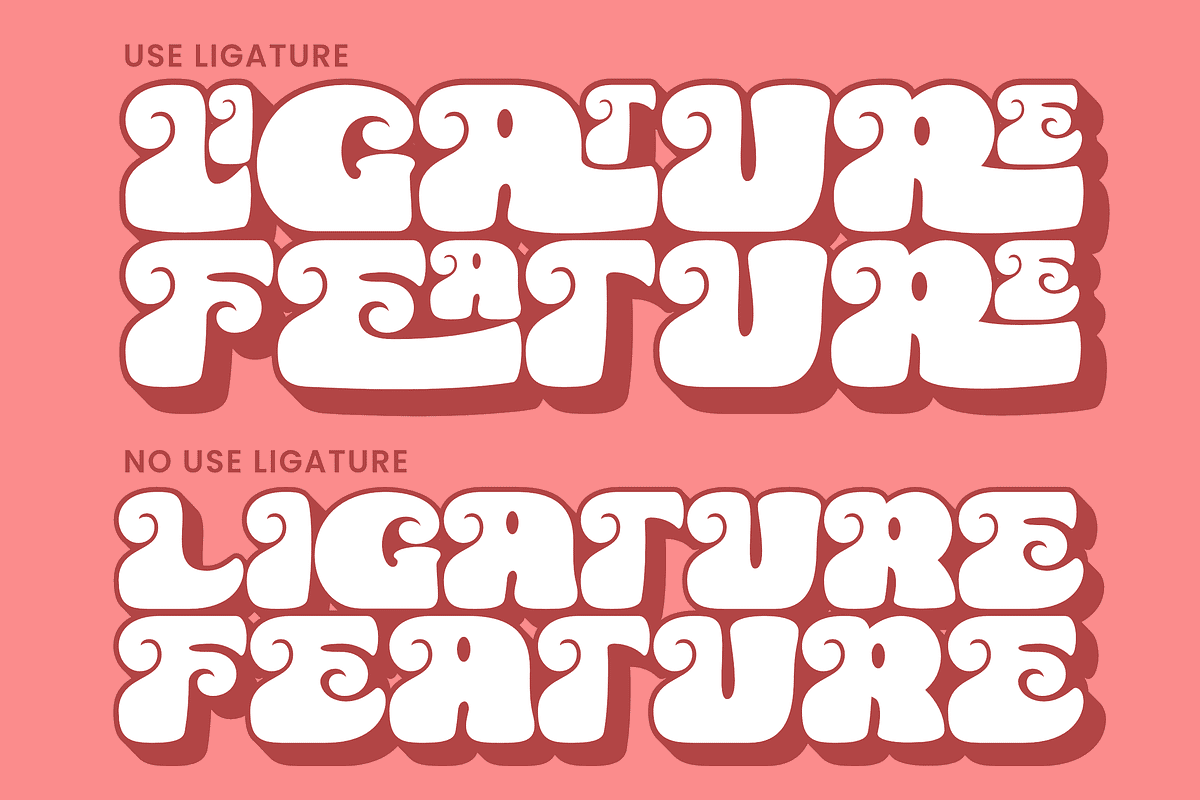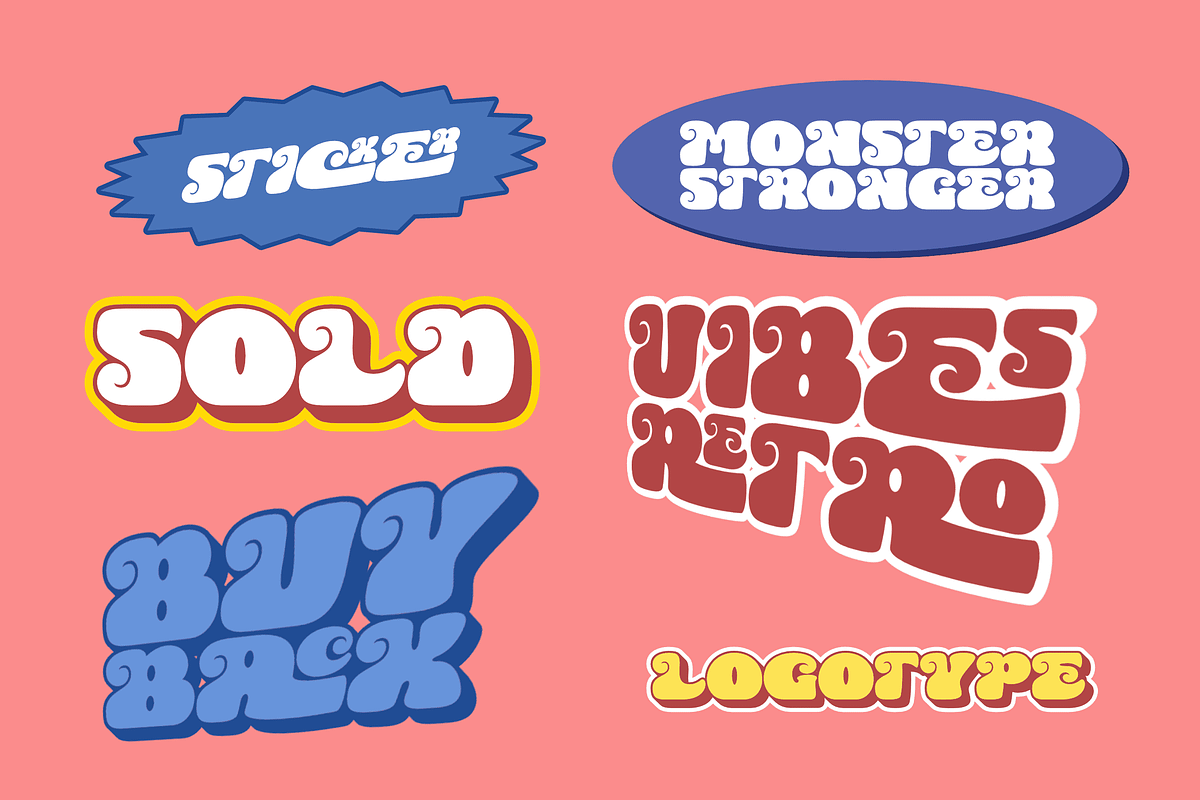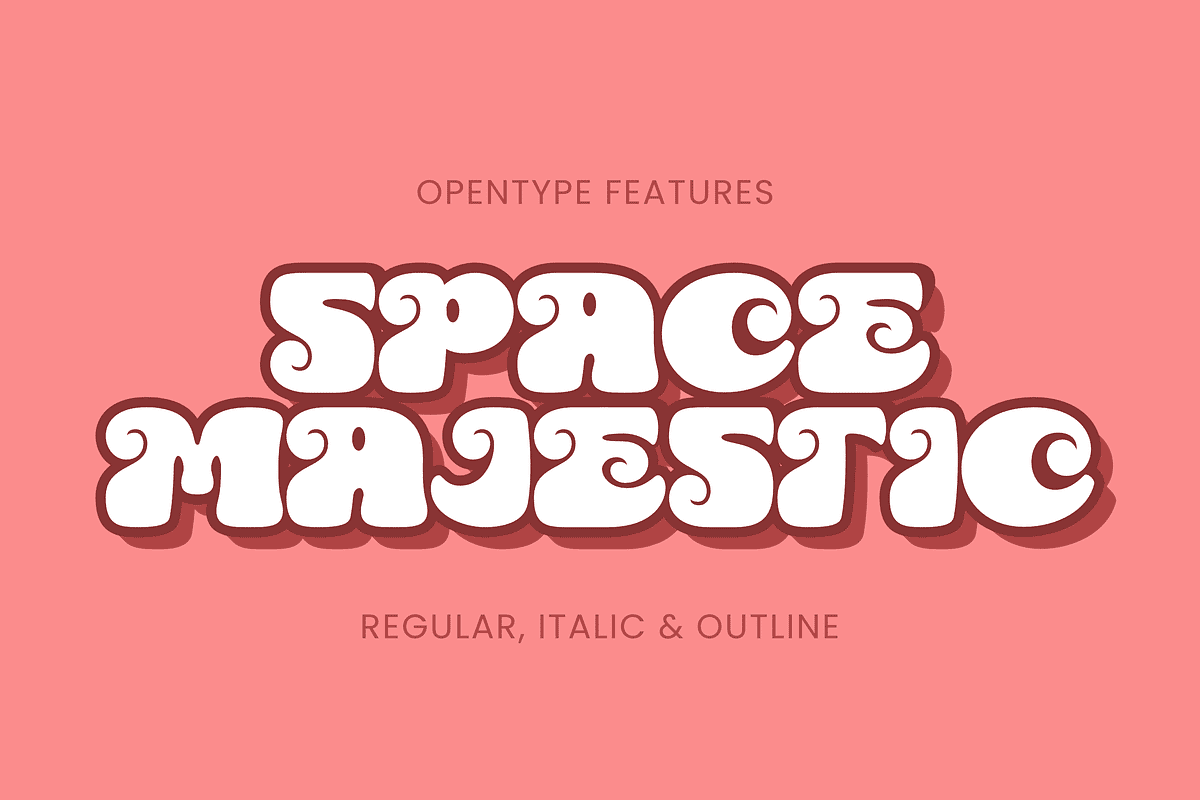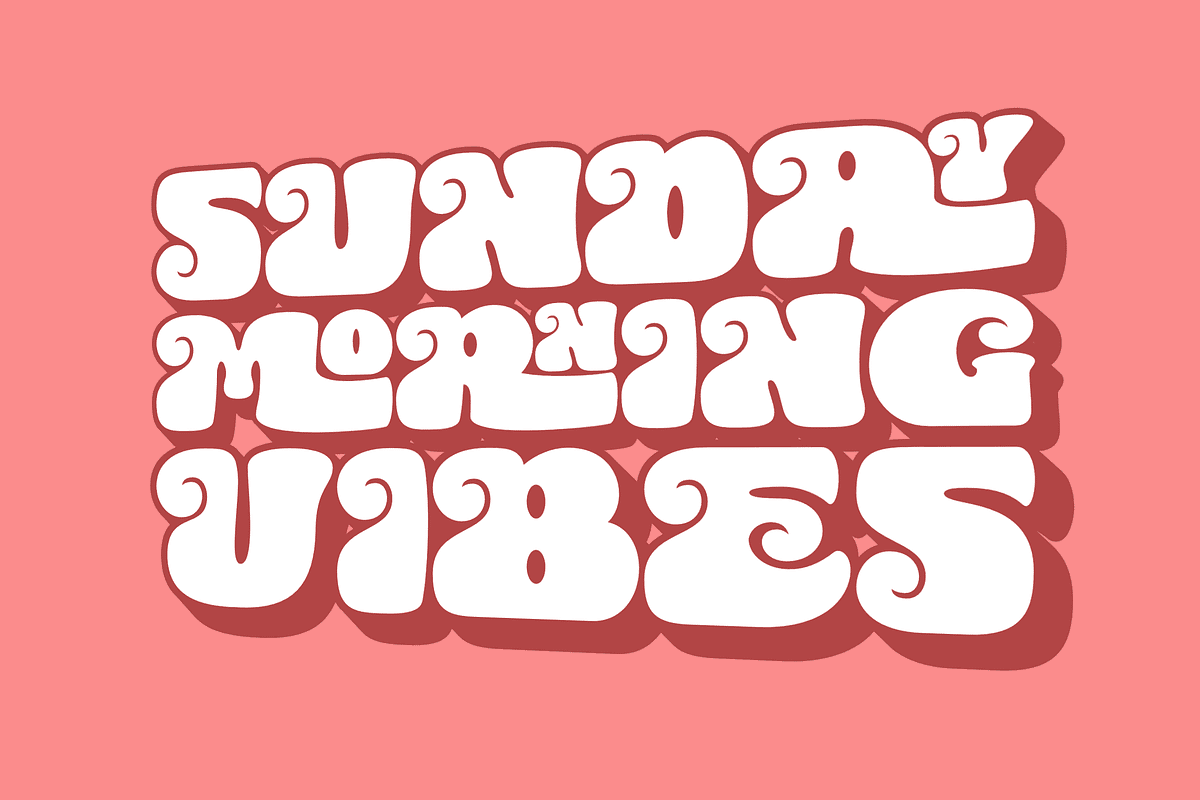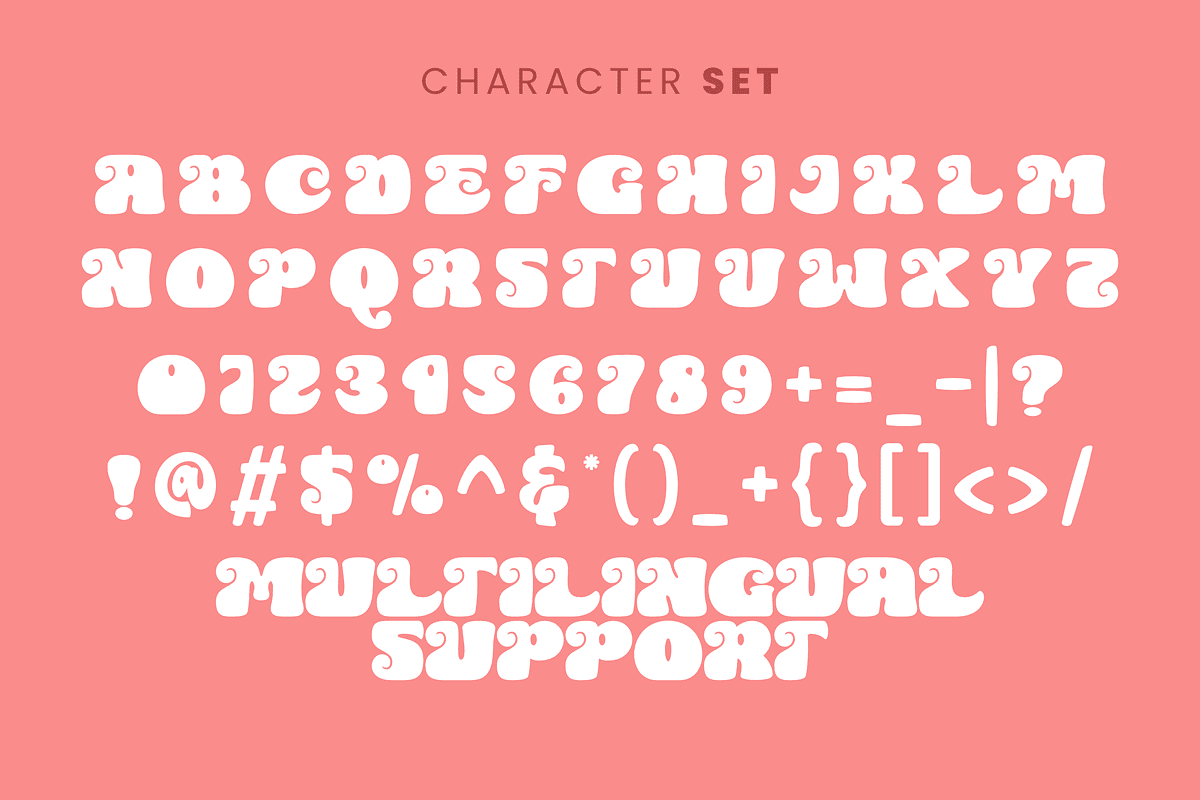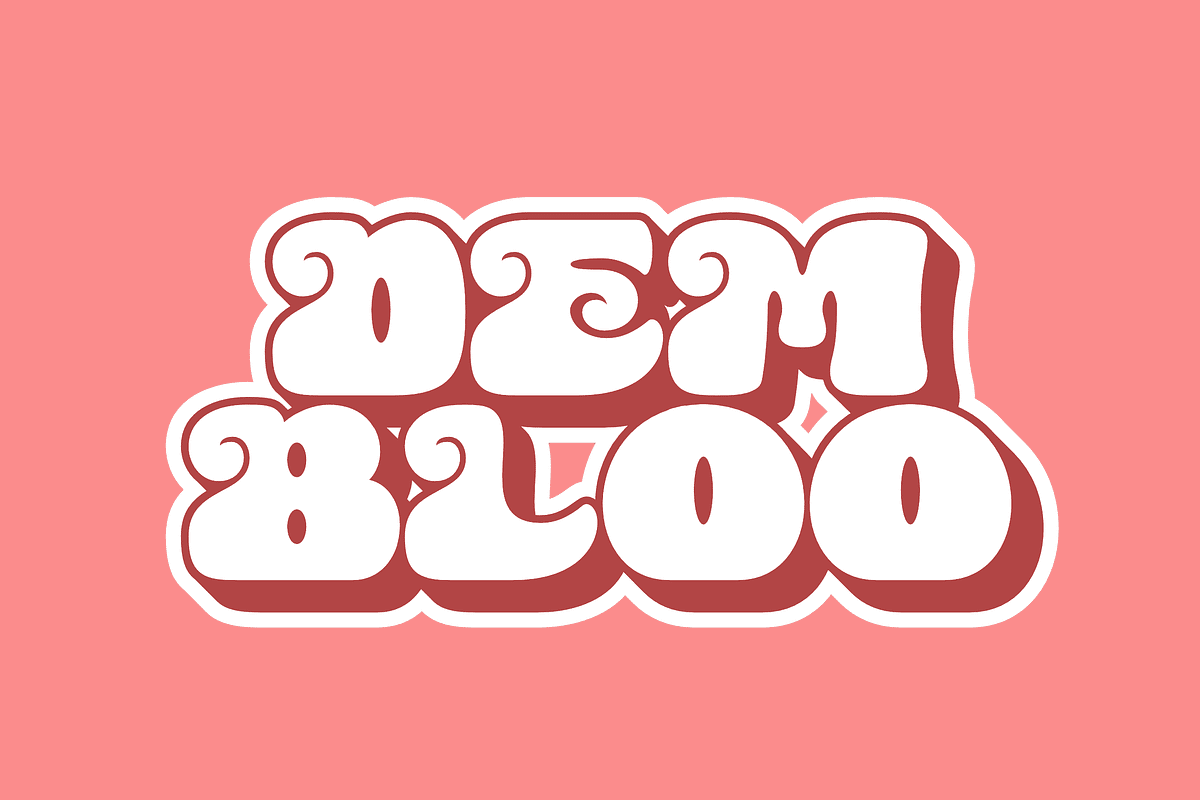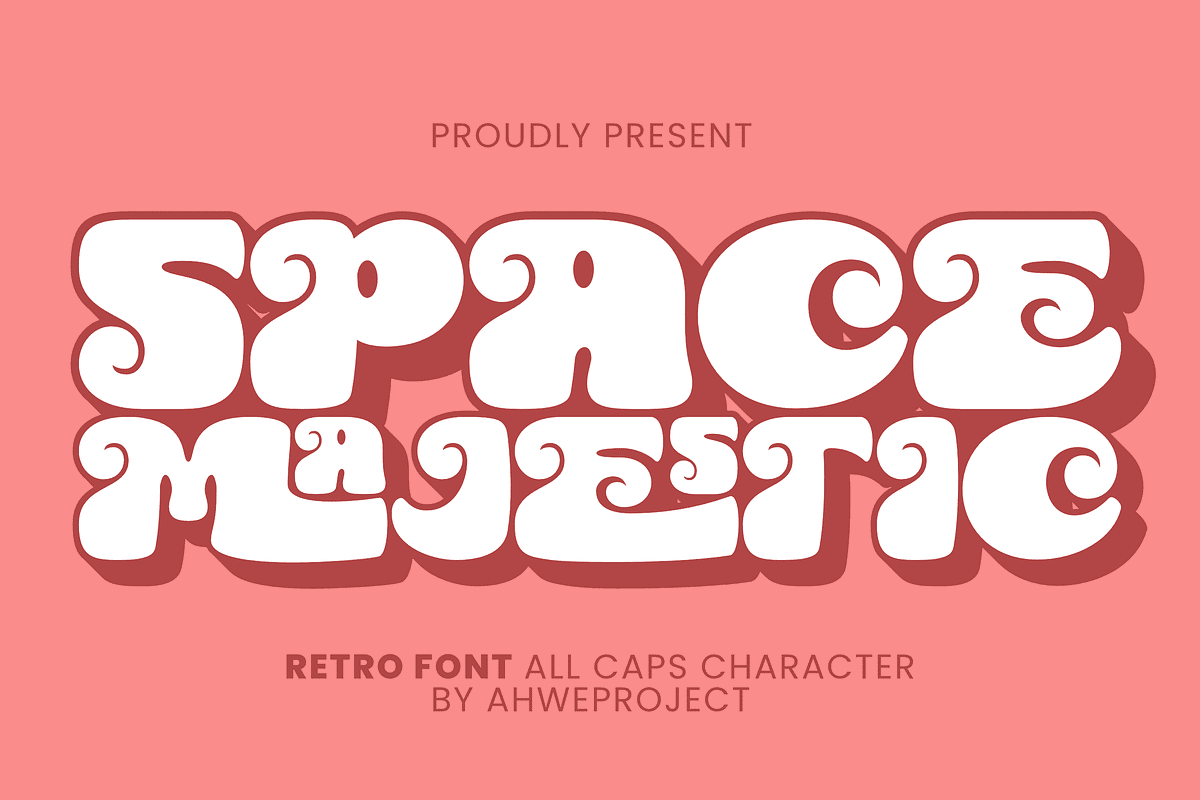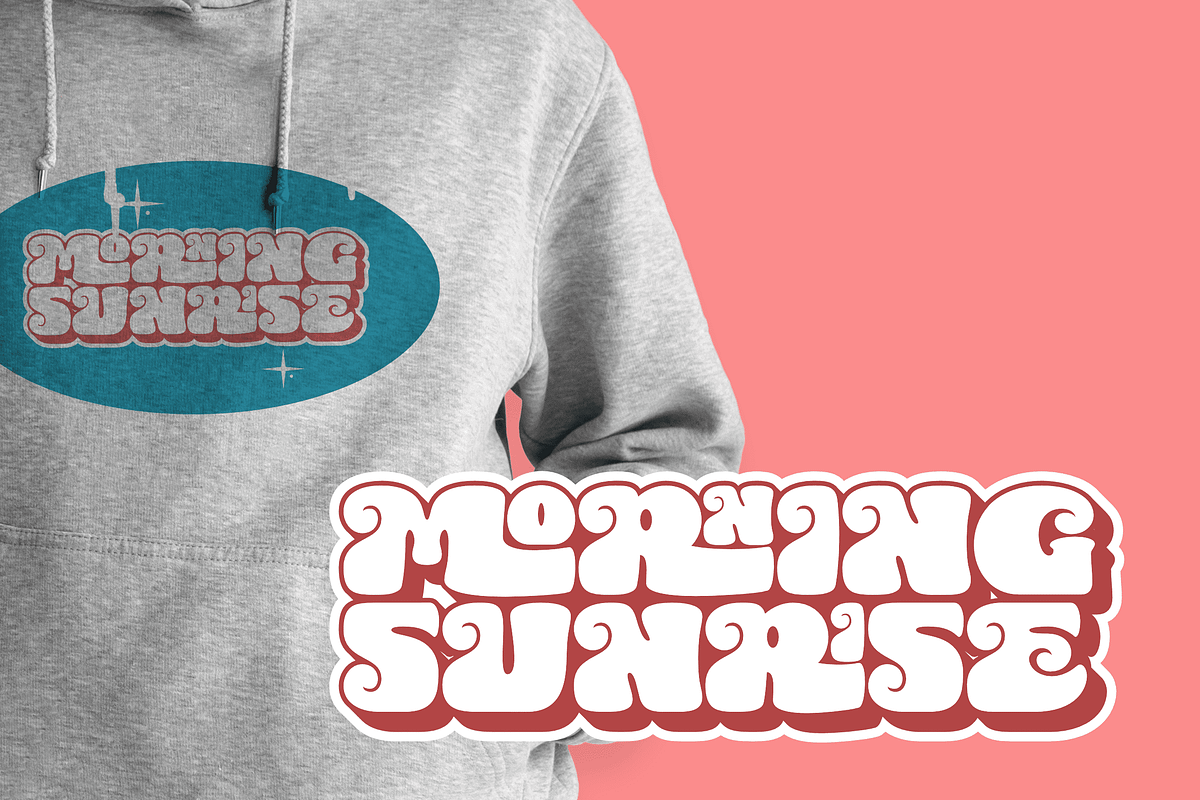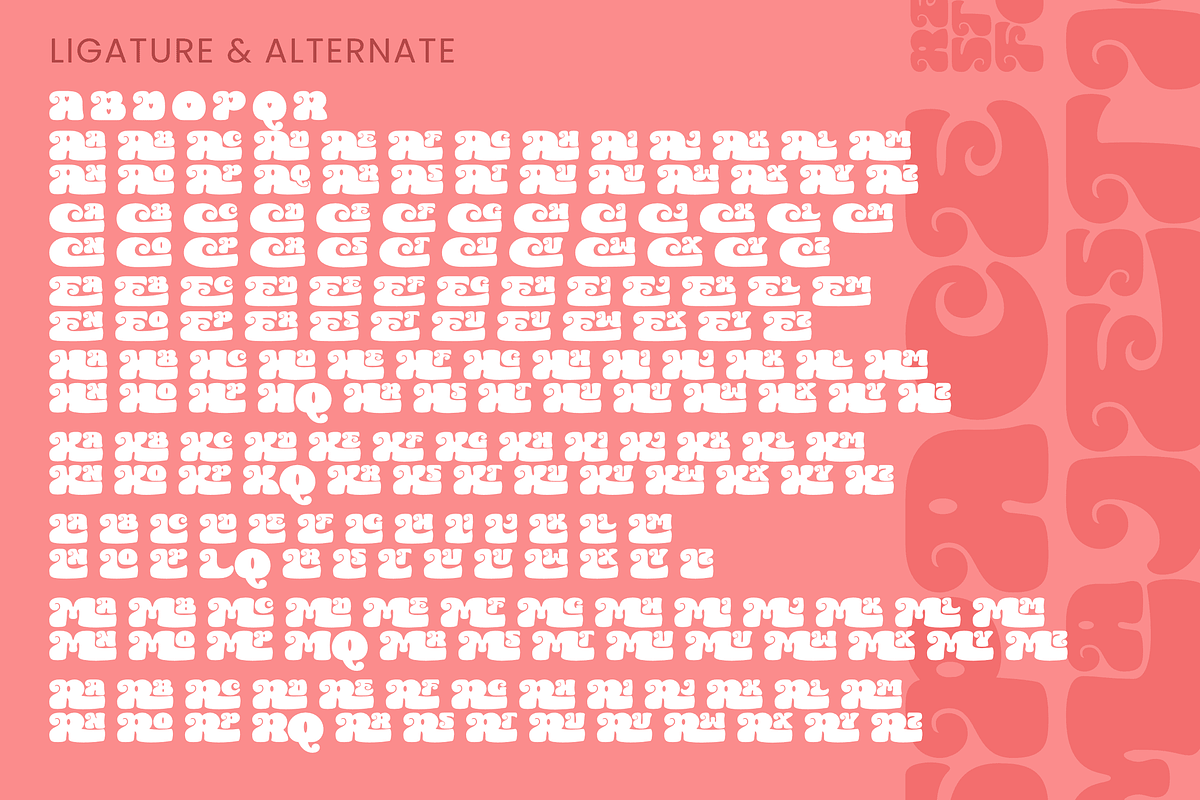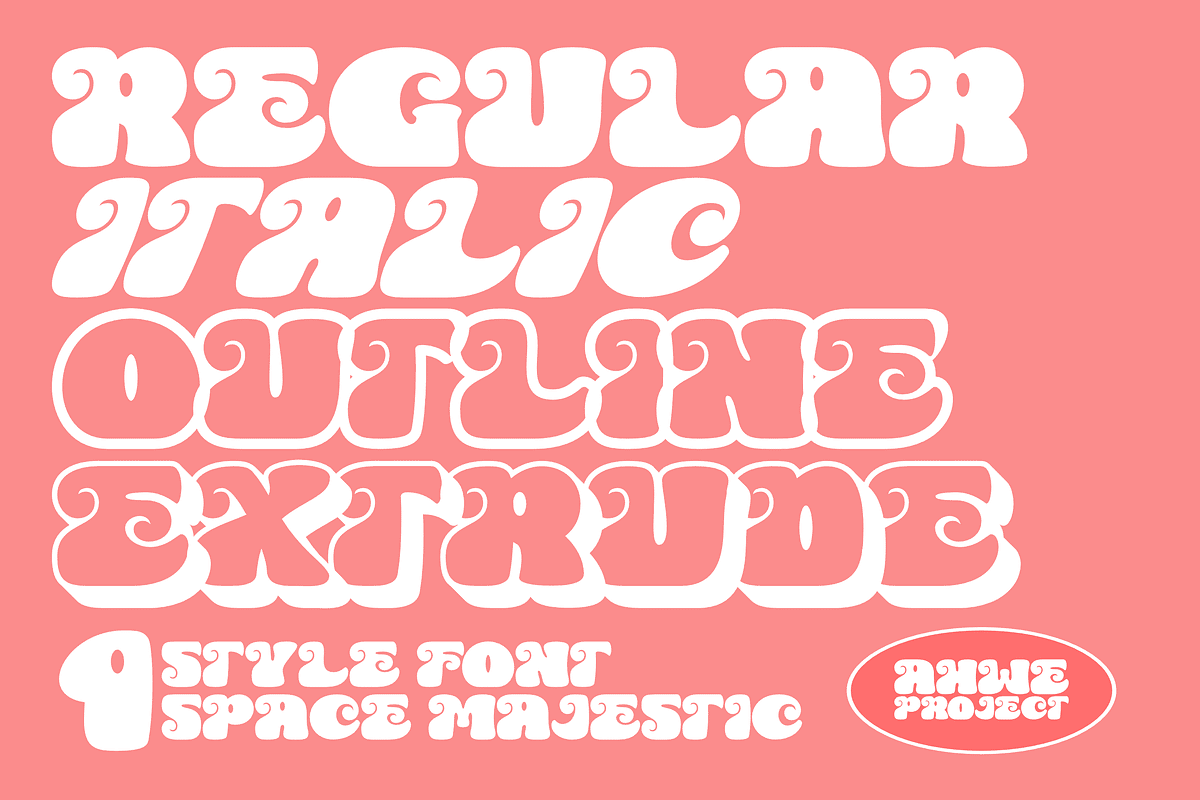
Space Majestic
Space Majestic is a retro display font that is a perfect blend of boldness and uniqueness. Its bulky letters are slightly unbalanced, adding an extra layer of charm and personality. It’s perfect for designs that require a vintage touch with a modern twist. This font is PUA encoded which means you can access all glyphs and swashes effortlessly!